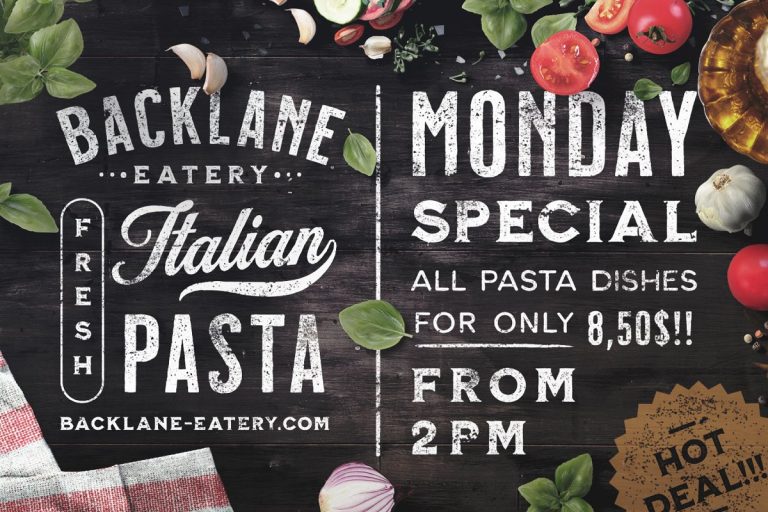
Milkstore Font Collection
The Milk store Font Collection contains a set of 5 textured fonts with an authentic handcrafted look. Brand new the Milk store font collection, Over 30 hand drawn icons.